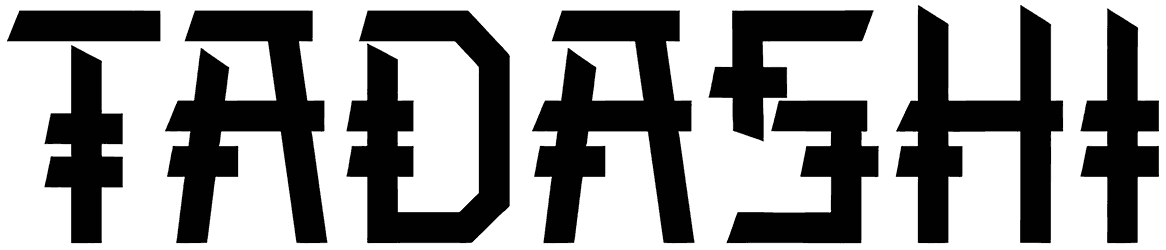
Tadashi Font
If you are searching for an apt letter style to amp up your Asian design, this offer can be impressive for you. The visual of the Japanese font is going to make your words full of a cultural and salient feeling. Tadashi doesn’t offer numerals and most punctuation marks, but it will be a nice pickup for lots of novel projects, from a logo to invitation cards.